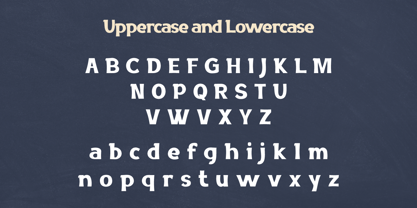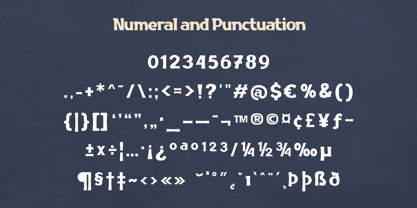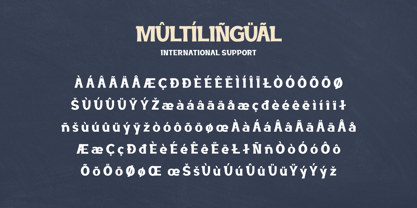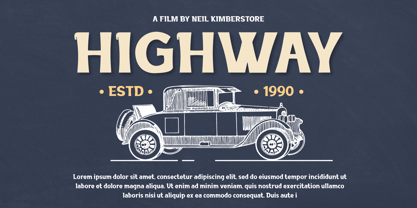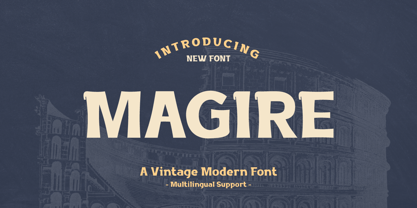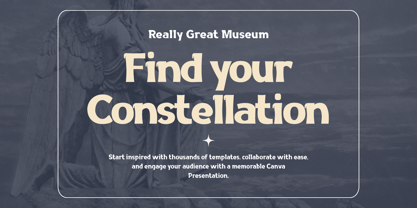
Magire
by Trabas Kriya
The Magire Font Family was designed by Murozakul Akhsan and published by Trabas Kriya. Magire contains 1 styles. More about this family
Magire is not just a font, it’s a journey back in time. This retro display font captures the essence of the past and brings it to your designs, creating a sense of nostalgia that is both powerful and subtle. Its unique, vintage-inspired characters are perfect for creating eye-catching headlines and logos that demand attention. With Magire, you’re not just designing, you’re storytelling.
- Fonts include Multilingual: Support for 85 languages.
Afrikaans, Albanian, Asu, Basque, Bemba, Bena, Breton, Catalan, Chiga, Cornish, Croatian, Czech, Danish, Dutch, Embu, English, Esperanto, Estonian, Filipino, Finnish, French, Friulian, Galician, Gusii, Hungarian, Indonesian, Irish, Italian, Kabuverdianu, Kalenjin, Kamba, Kikuyu, Kinyarwanda, Latvian, Lithuanian, Lower, Sorbian, Luo, Luxembourgish, Luyia, Machame, Makhuwa-Meetto, Makonde, Malagasy, Maltese, Manx, Meru, Morisyen, North, Ndebele, Norwegian Bokmål, Norwegian Nynorsk, Nyankole, Oromo, Polish, Portuguese, Quechua, Romanian, Romansh, Rombo, Rundi, Rwa, Samburu, Sango, Sangu, Scottish, Gaelic, Sena, Serbian, Shambala, Shona, Slovak, Slovenian, Soga, Somali, Spanish, Swahili, Swedish, Swiss German, Taita, Teso, Turkish, Upper Sorbian, Uzbek (Latin), Volapük, Vunjo, Walser, Zulu.
Designers: Murozakul Akhsan
Foundry: Trabas Kriya